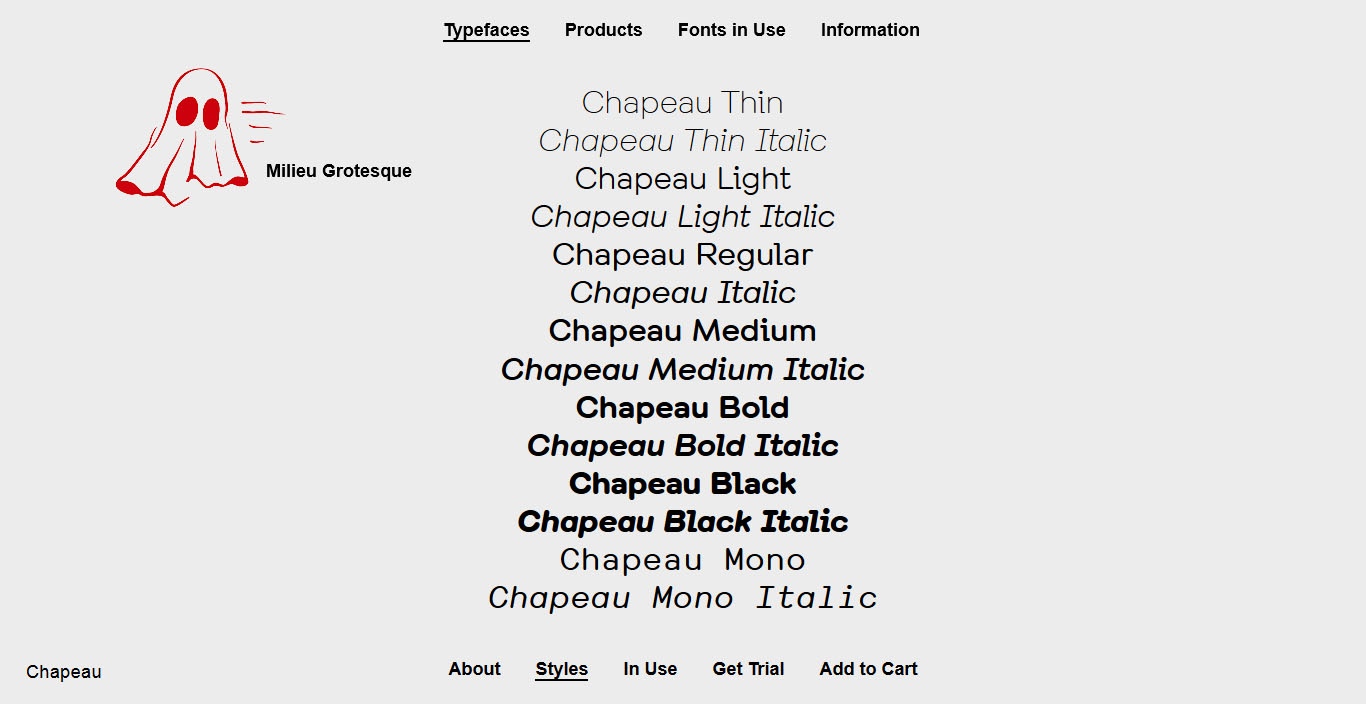
Chapeau Font
Chapeau Font is perfect for French cultural institutions, Parisian boutique branding, elegant fashion magazines, sophisticated restaurant menus, luxury hospitality materials, refined cultural exhibitions, European travel campaigns, haute couture presentations, distinguished wine labels, and authentic French heritage projects.
What makes Chapeau Font so exciting is its exquisite embodiment of French elegance and Parisian sophistication that captures the timeless charm of French cultural refinement through elegantly crafted typography inspired by classic European design traditions. This culturally sophisticated typeface features graceful letterforms with French-inspired proportions and elegantly refined character variations that immediately convey sophistication, cultural heritage, and the irresistible allure of authentic French style. The font's elegant construction and culturally rich aesthetic create an instant sense of Parisian charm and European sophistication, making it ideal for projects that need to communicate French cultural elegance, European refinement, and the transformative power of authentic French sophistication to audiences seeking genuine European experiences and meaningful cultural connections.
The Chapeau Font family typically includes multiple elegant weights and refined styles, often featuring light through bold variations along with gracefully flowing italic versions and culturally appropriate alternatives. French-inspired font collections frequently offer additional cultural elements such as European symbols, French ornaments, and sophisticated decorations that enhance the authentic Parisian aesthetic and provide designers with comprehensive tools for creating genuinely cultural and elegantly French communications.
The French nature of Chapeau Font makes it particularly effective for targeting demographics that value European culture and French sophistication in their lifestyle and cultural choices. Luxury marketers and cultural event organizers will find this font especially valuable for materials that must establish immediate French credibility and connect with audiences seeking authentic European experiences and meaningful French cultural engagement.
What sets Chapeau Font apart is its ability to convey authentic French sophistication while maintaining the accessibility necessary for effective international communication and cultural appreciation. This balanced characteristic makes it suitable for both traditional French cultural applications and contemporary international contexts where projecting European elegance and maintaining global appeal must work together harmoniously.
Professional designers recognize that Chapeau Font brings invaluable French credibility to projects across industries including luxury hospitality, cultural tourism, fashion design, and European heritage preservation. Its sophisticated character and French appeal make it essential for organizations whose mission centers on celebrating French culture, promoting European sophistication, and creating meaningful connections between traditional French values and contemporary international cultural appreciation.
The thoughtfully crafted cultural authenticity of Chapeau Font ensures consistent French messaging across all European-focused communication applications while honoring the fundamental importance of cultural respect and authentic representation in French typography and European cultural communication.